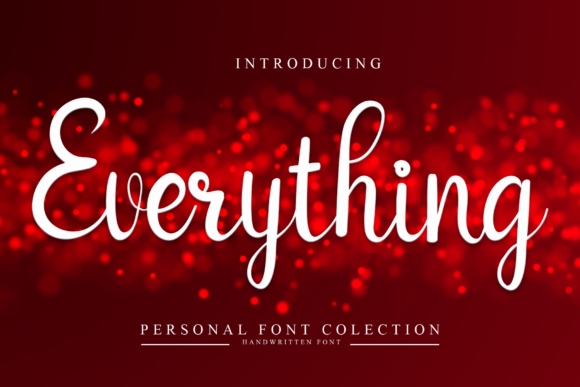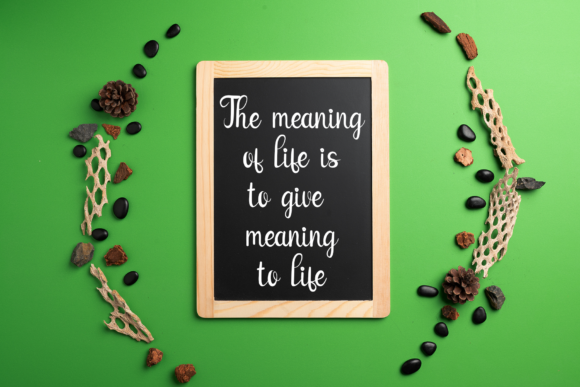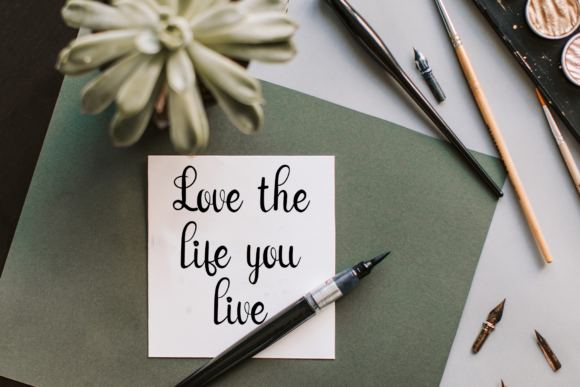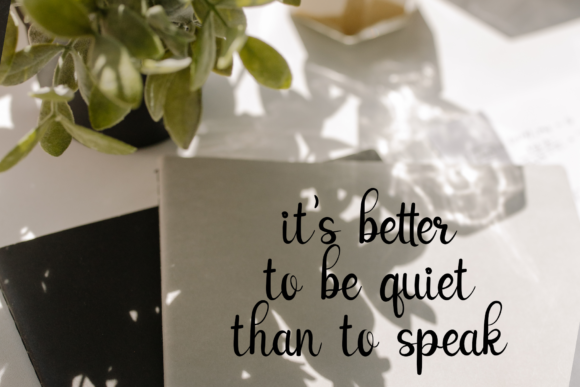
About Everything Font
Everything is a delicate and elegant handwritten font. Its distinct and well balanced letters make this font a masterpiece. Fall in love with its incredibly versatile style and use it to create spectacular designs!